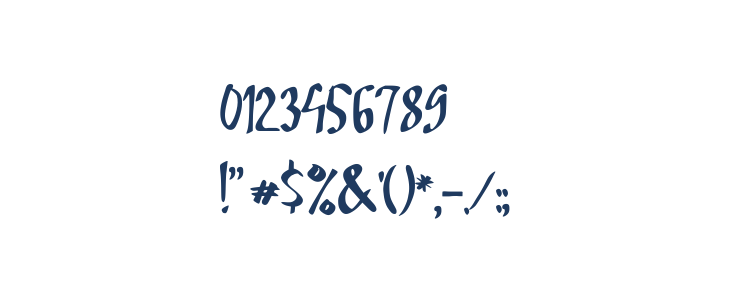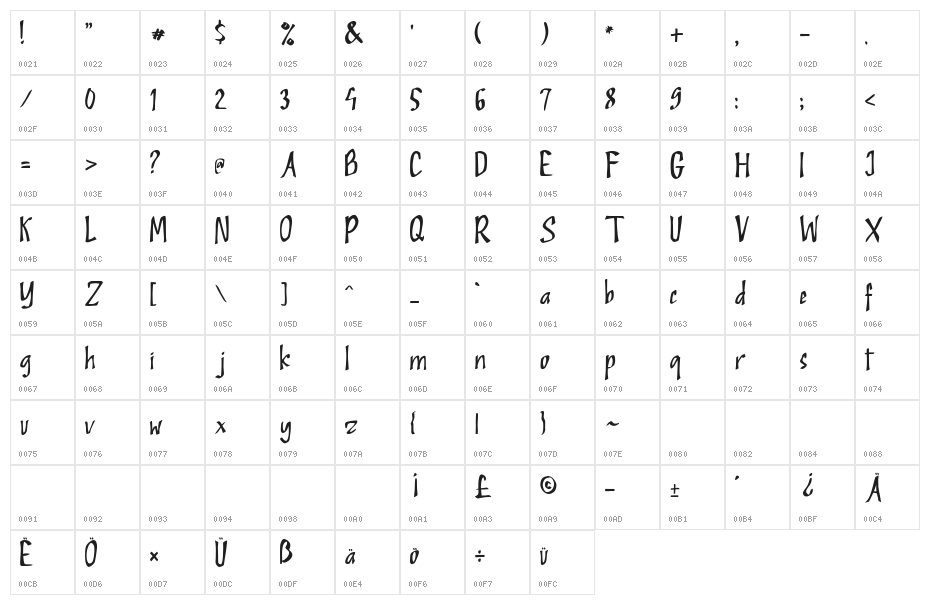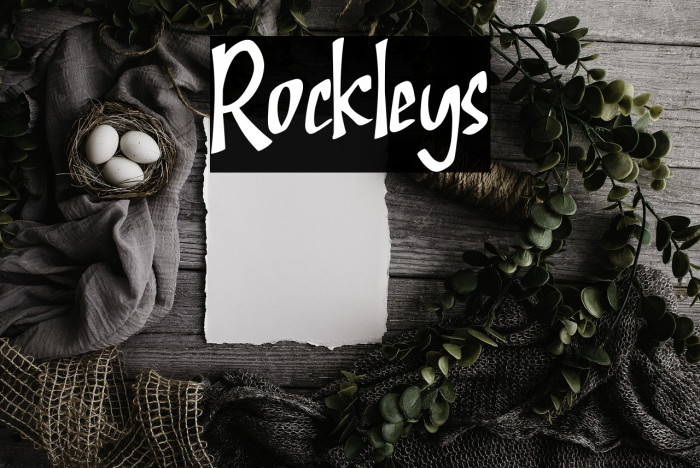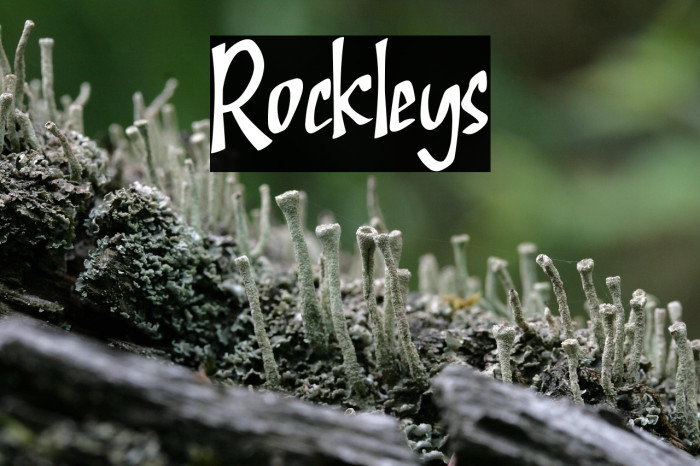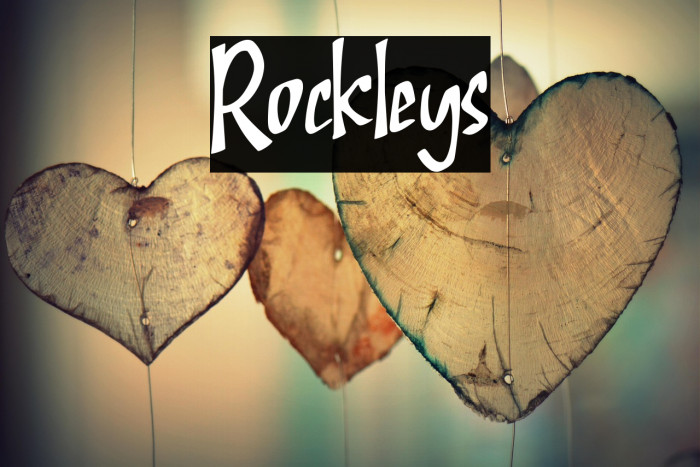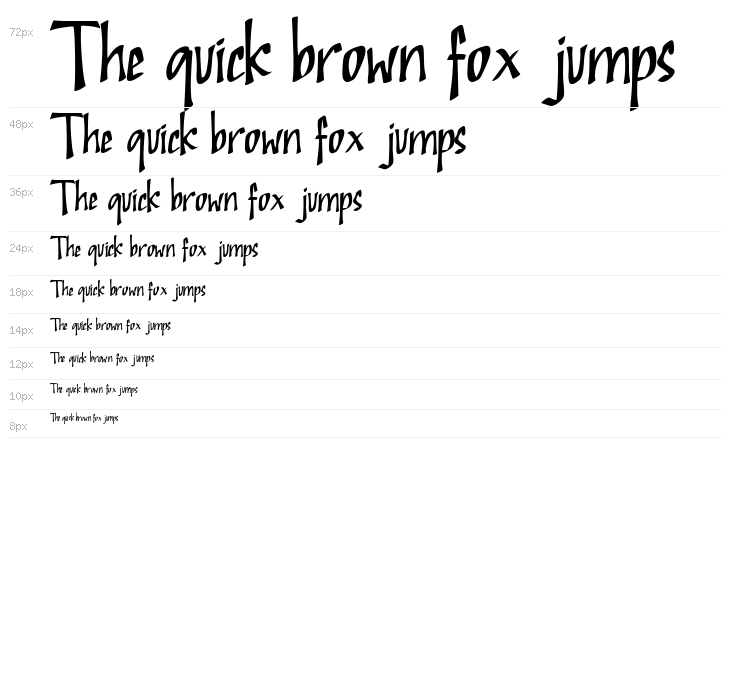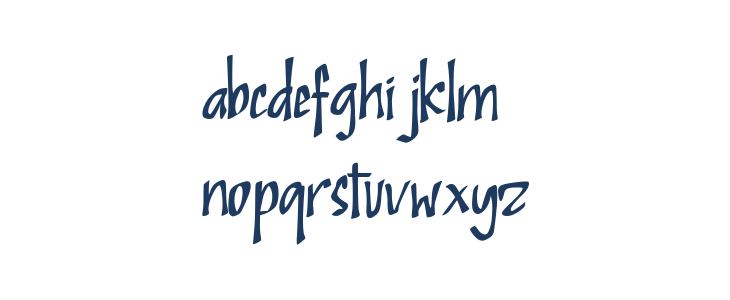
Rockleys Font
Rockleys Description
This font exudes a playful and dynamic energy with its hand-drawn, irregular strokes and slightly tilted characters. The uppercase letters are bold and prominent, while the lowercase letters maintain a whimsical charm. Numbers and special characters follow the same lively style, making them stand out. The font's unique personality is perfect for projects that require a touch of creativity and fun. Its uneven baseline and varying stroke widths add to its informal and artistic appeal.
| Use Case | Logos, Posters, Invitations |
| Proposed Projects | Ideal for children's books, creative posters, playful branding, and artistic invitations. |